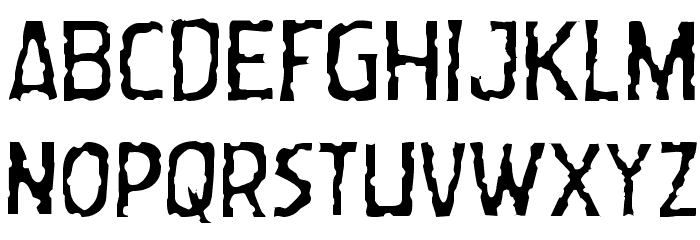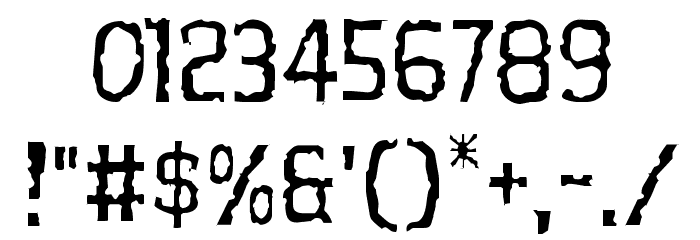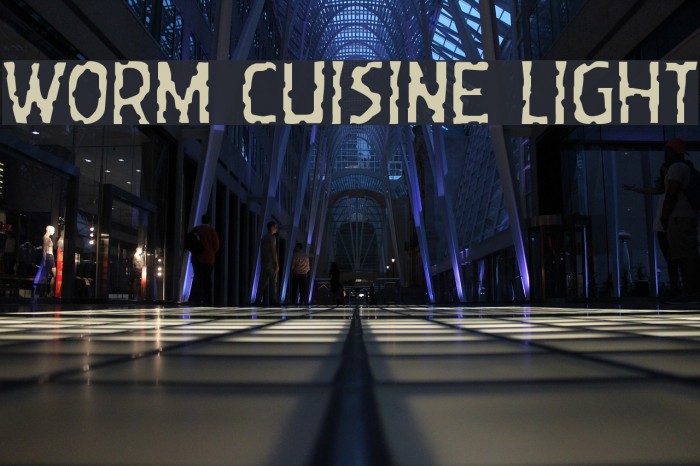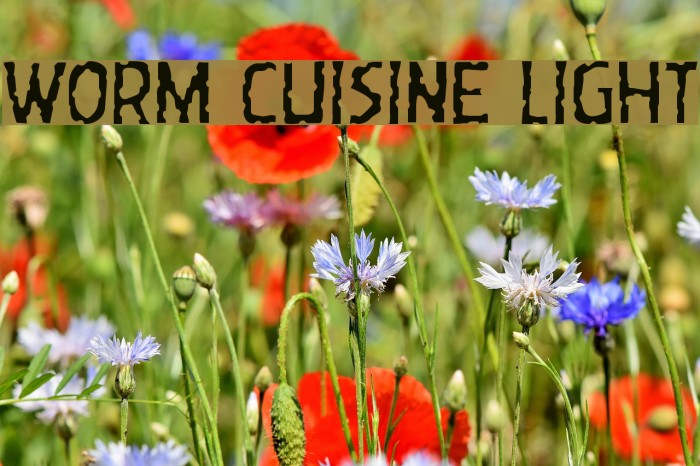
Worm Cuisine Light Font
This font features a unique, organic design with irregular edges and a slightly distressed appearance, reminiscent of natural textures. The characters are bold and have a rugged, hand-crafted feel, making them stand out with a distinctive personality. The uppercase and lowercase letters maintain a consistent style, with numbers and special characters following the same aesthetic. This font is perfect for projects that require a touch of nature or an unconventional, artistic flair.
A bold, organic font with irregular, distressed edges and a natural, hand-crafted feel.
- Proposed Projects: Ideal for eco-friendly branding, artistic posters, nature-themed events, or any project needing a rustic, organic touch.